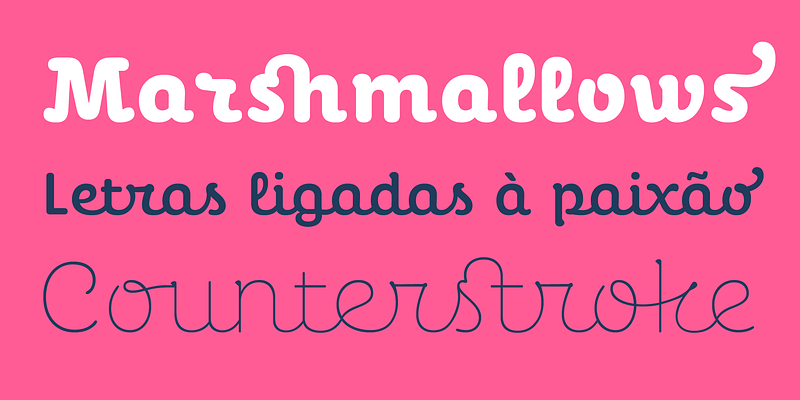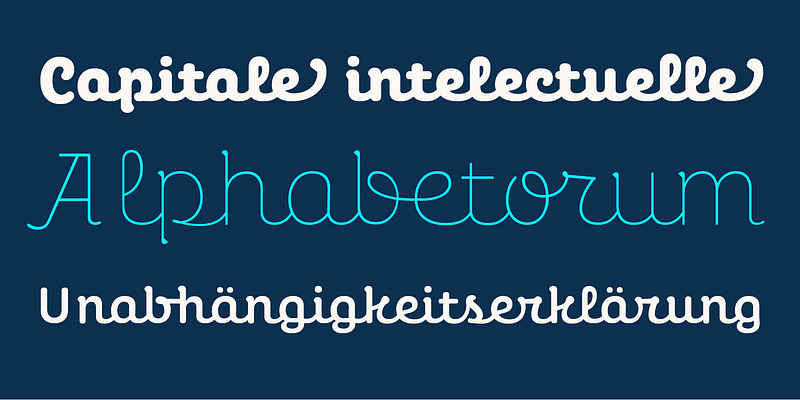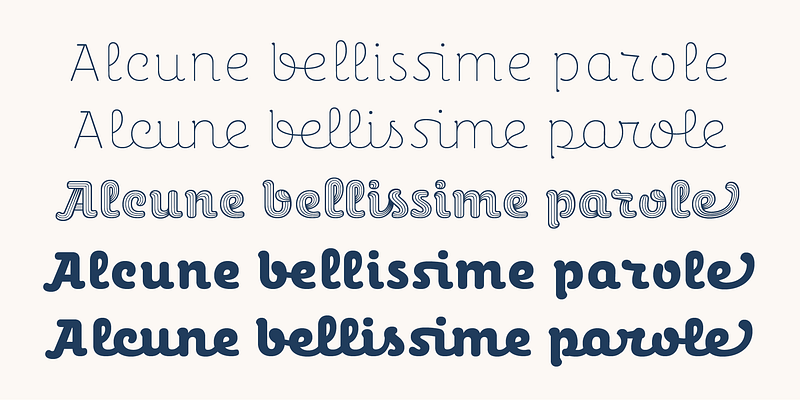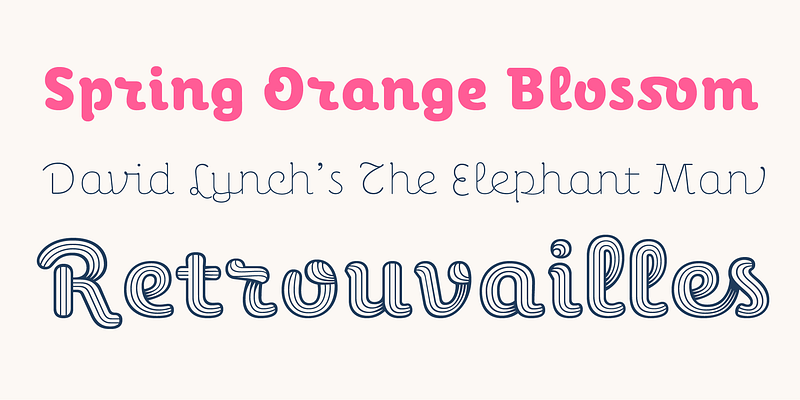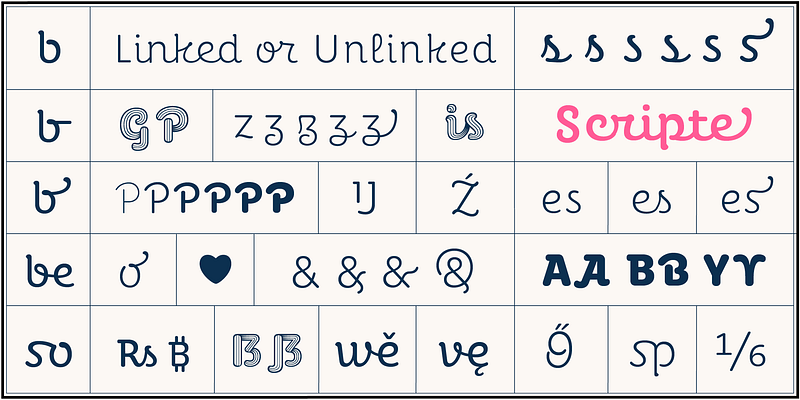
With a serene air and a hint of nostalgia, Perec Scripte is a vertical script font with a delicate persuasive tone. It comes in two styles: Unlinked (1) and Linked (2), both declined in six comprehensive weights including numerous contextual sorts, ligatures, alternates, swashes and more. Although conceived as a display font, it can be used in short text pieces, especially the Light, Regular and Medium weights. A third style of the family is Perec Scripte Deco, meant for greater graphic impact, ideal for titles, signs and unique logos. Perec Scripte Deco has three carefully hand-drawn stripes that flow throughout the alphabet giving a subtle sense of volume and creating a unique word appeal. Perec Scripte is part of the Perec superfamily, made as a tribute to the genius of Georges Perec, a singular writer of the 20th century. All Perec styles can be used together, judiciously, to achieve editorial pages rich in expression.